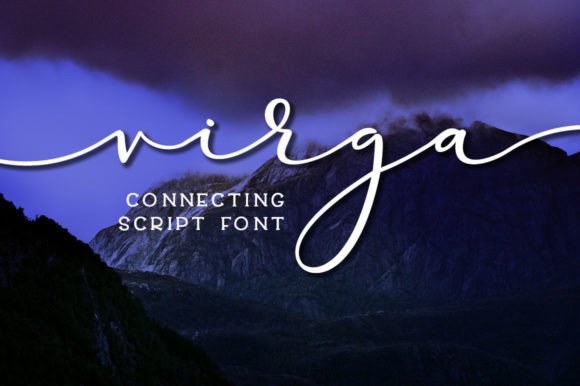
Welcome to the world of Virga Script, where elegance and sophistication unite to create a captivating font family that will make your designs shine. Immerse yourself in an atmospheric phenomenon, just like the rain that doesn't reach the ground but dances in the air, leaving a mesmerizing trail of drooping clouds. Virga Script embodies this ethereal beauty, with smooth transitions and extra-fancy uppercase letters that add a touch of grandeur to your creations.
Indulge in the delight of Virga Script's connecting script, where each lowercase letter begins with a graceful stroke, adding a touch of flair to every word. Experiment with the 3 entry and 3 exit swashes mapped to the bracket keys, and let your words make a dramatic entrance and exit.
Virga Script's versatility extends beyond its aesthetic charm, offering over 200 accented characters to support a multitude of languages. Embrace the global appeal of your designs with English, French, Spanish, German, Polish, Romanian, Portuguese, Swedish, Finnish, Norwegian, Danish, Esperanto, Czech, Dutch, Welsh, Filipino, Turkish, and more!